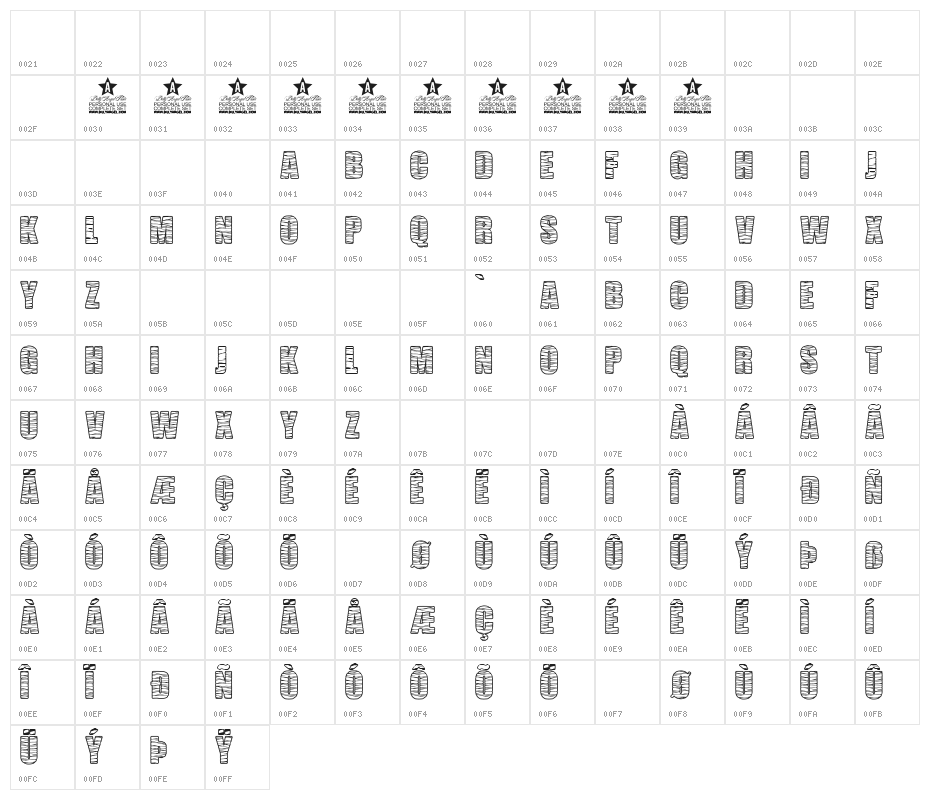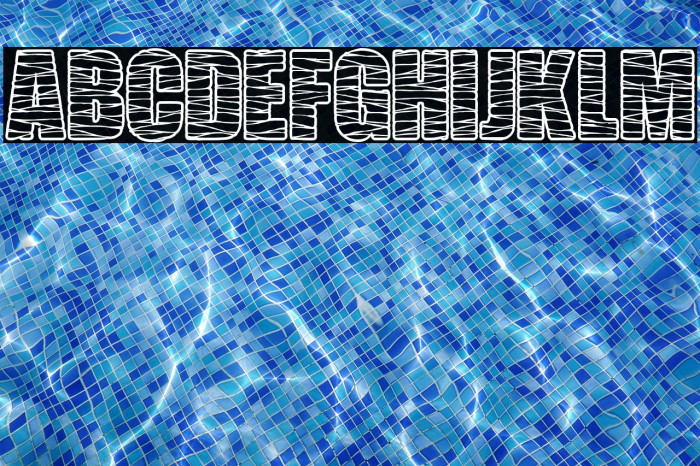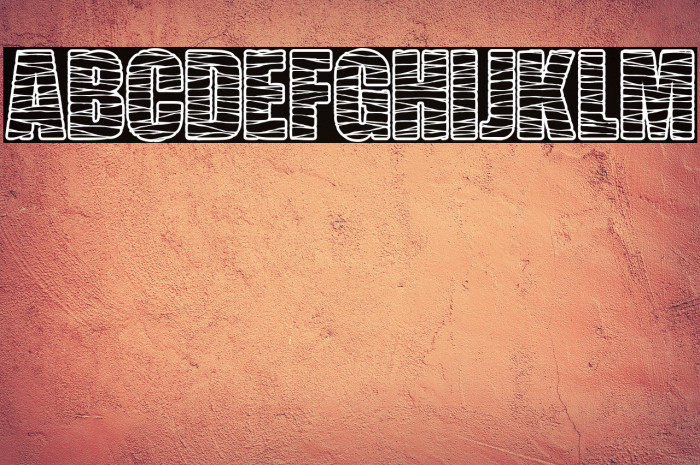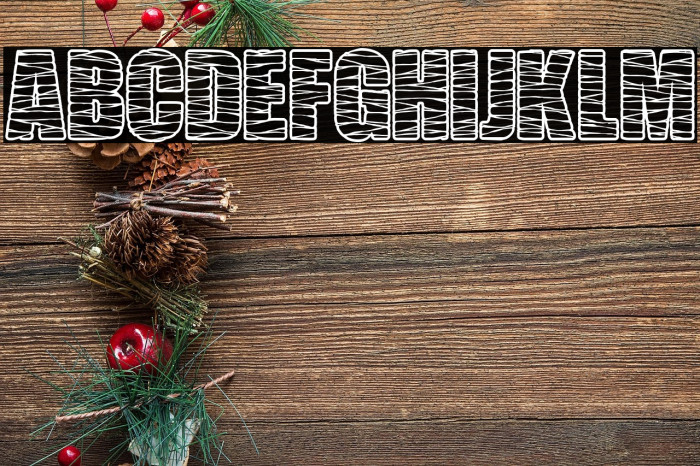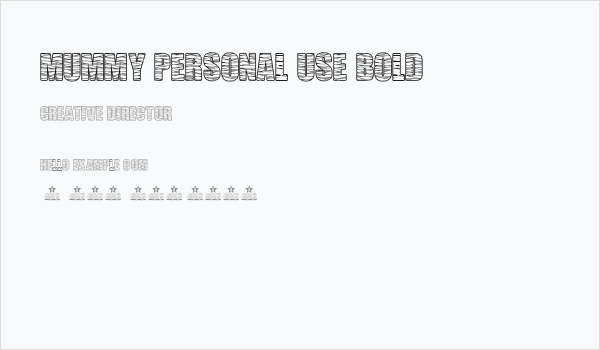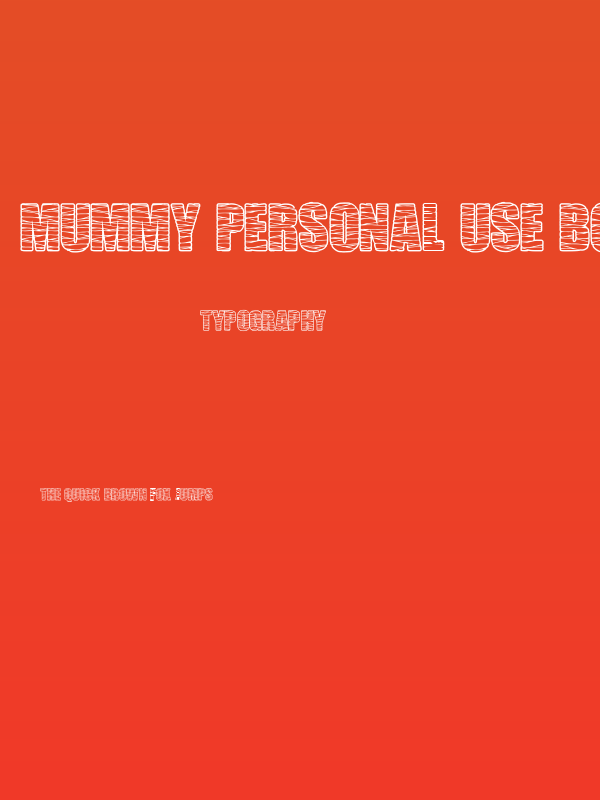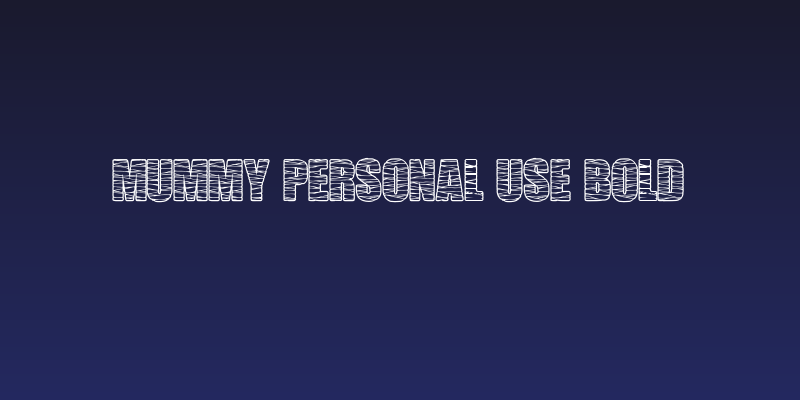
MUMMY PERSONAL USE Bold Font
MUMMY PERSONAL USE Bold Description
This font features a bold, decorative style with a unique design that resembles wrapped bandages or mummy wrappings. Each letter is filled with intricate, overlapping lines that create a textured appearance, making it stand out as a playful and thematic choice. The uppercase letters are consistent in height and width, providing a uniform look across the alphabet. The font's distinct style is ideal for projects that require a spooky or Halloween-themed aesthetic, adding a touch of fun and creativity to any design.
| Proposed Projects | Perfect for Halloween-themed posters, party invitations, themed events, and creative logos. |